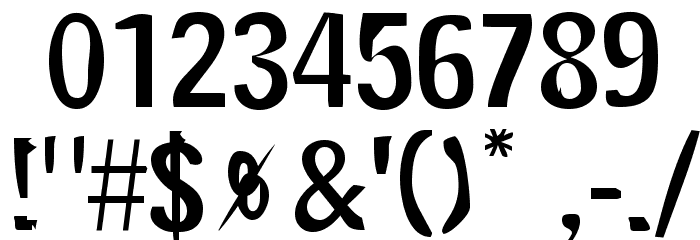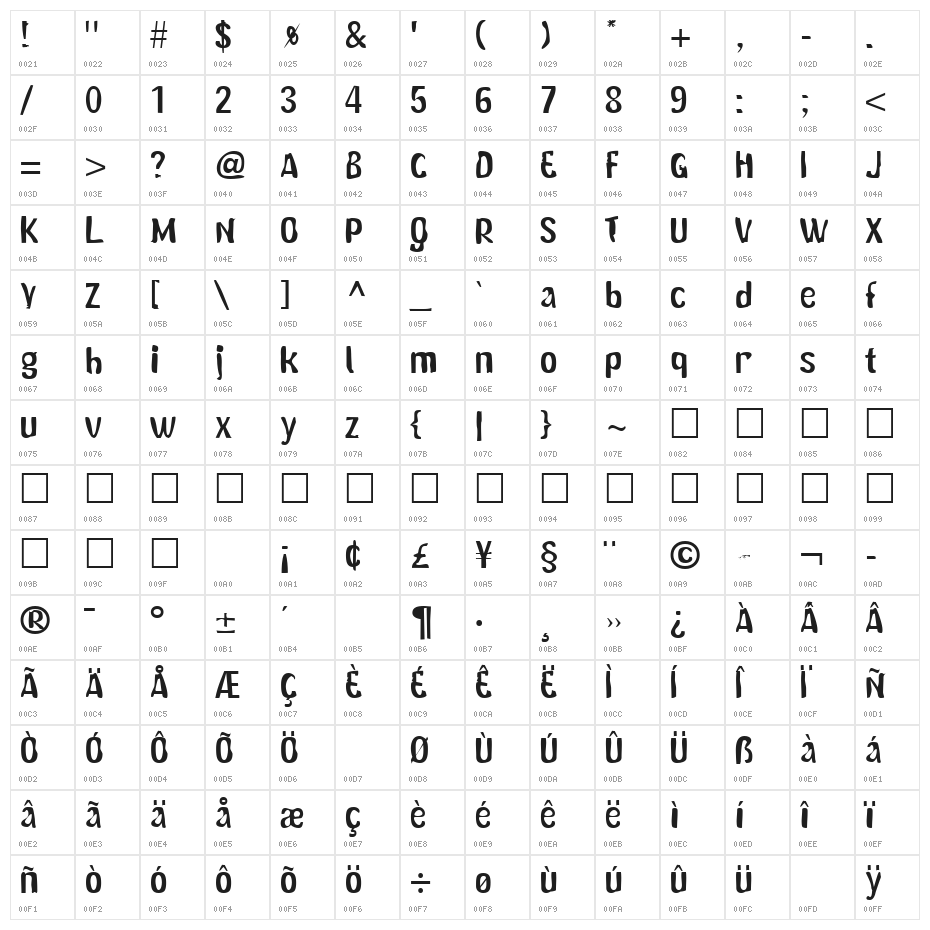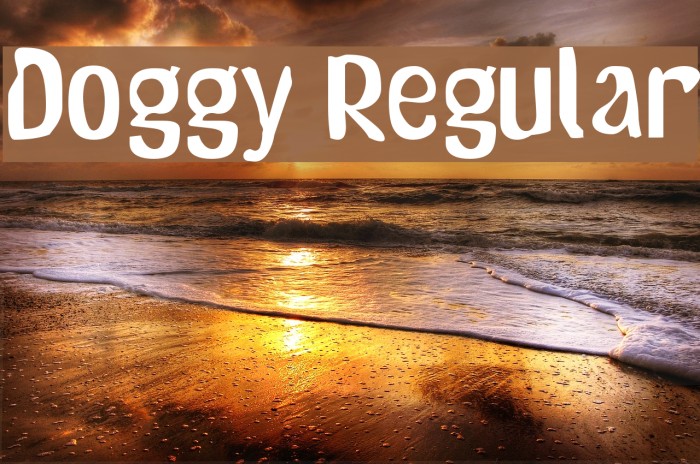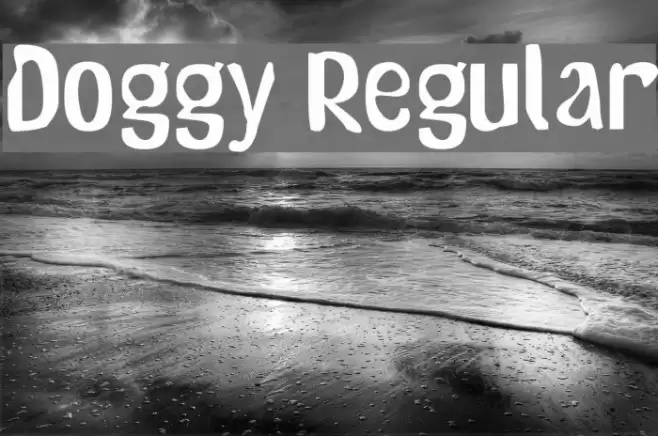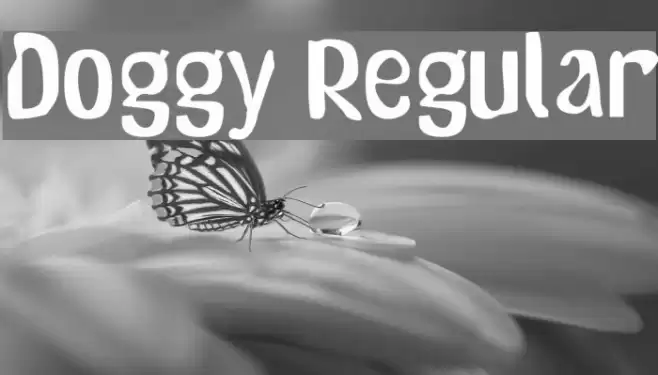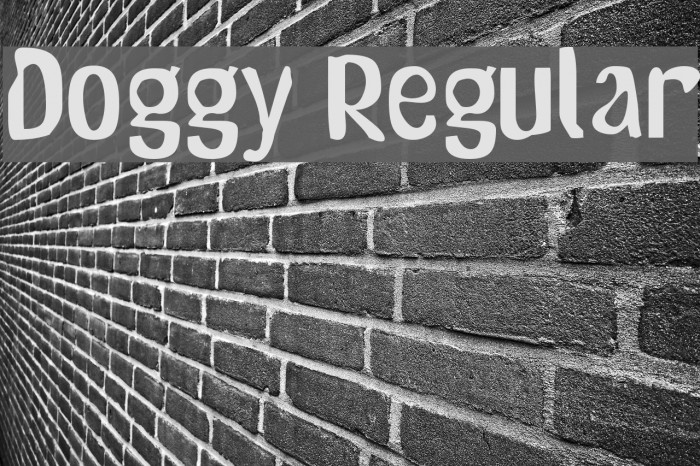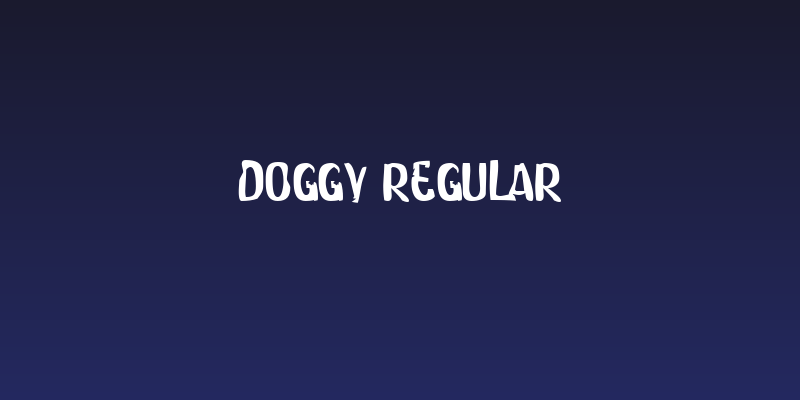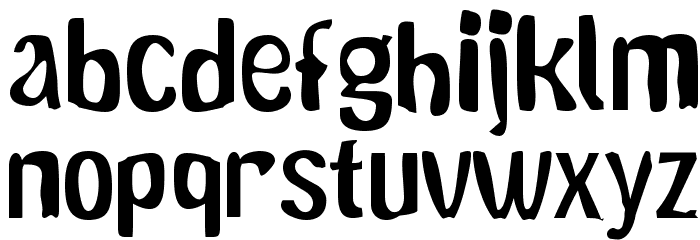
Doggy Regular Font
Doggy Regular Description
This playful and whimsical font features a bold and slightly irregular design, reminiscent of hand-drawn lettering. The characters have a lively and dynamic appearance, with varying stroke widths that add to its charm. The uppercase and lowercase letters maintain a consistent style, while the numbers and special characters complement the overall aesthetic. Its unique personality makes it stand out, making it ideal for creative and informal projects.